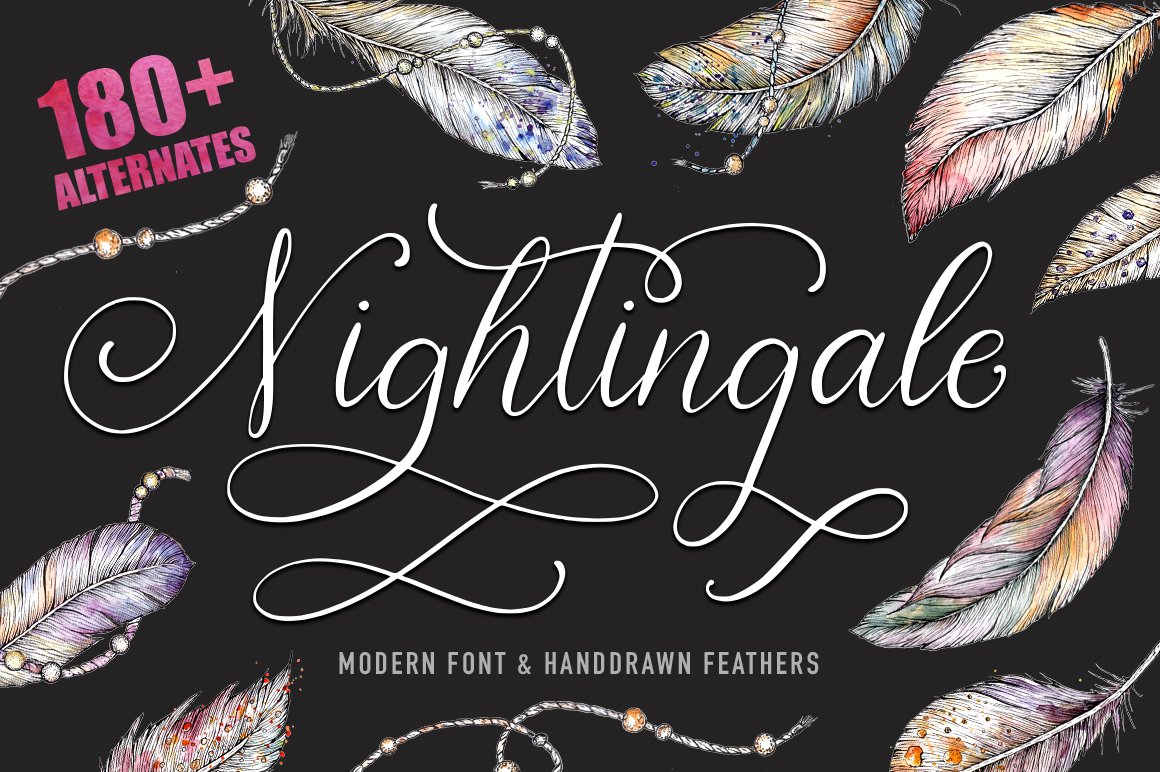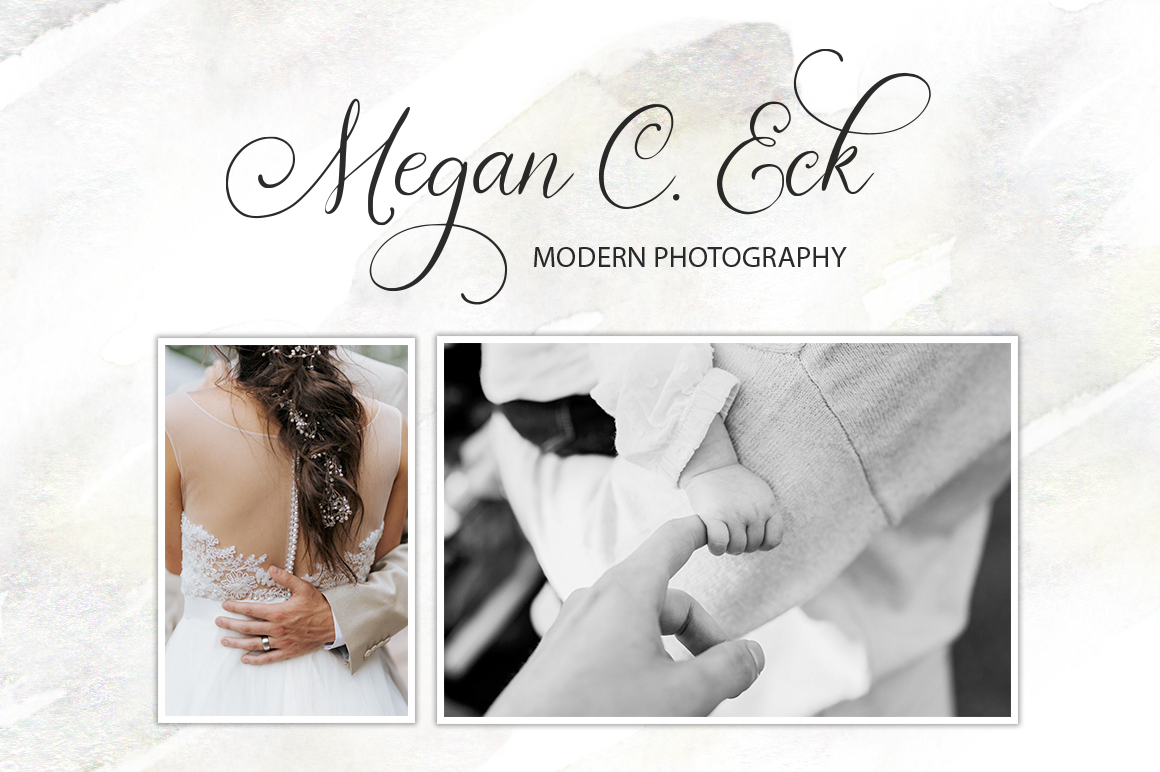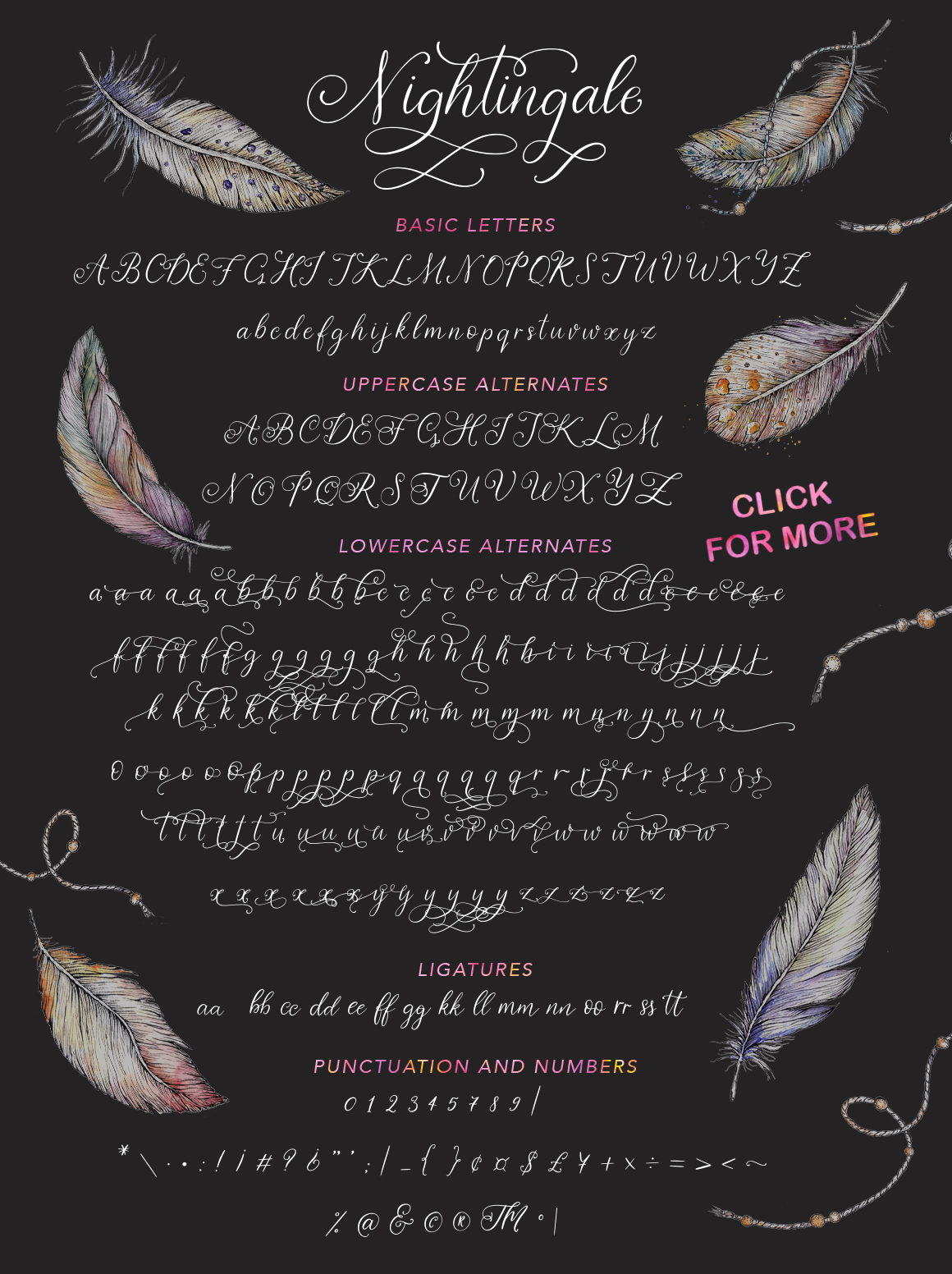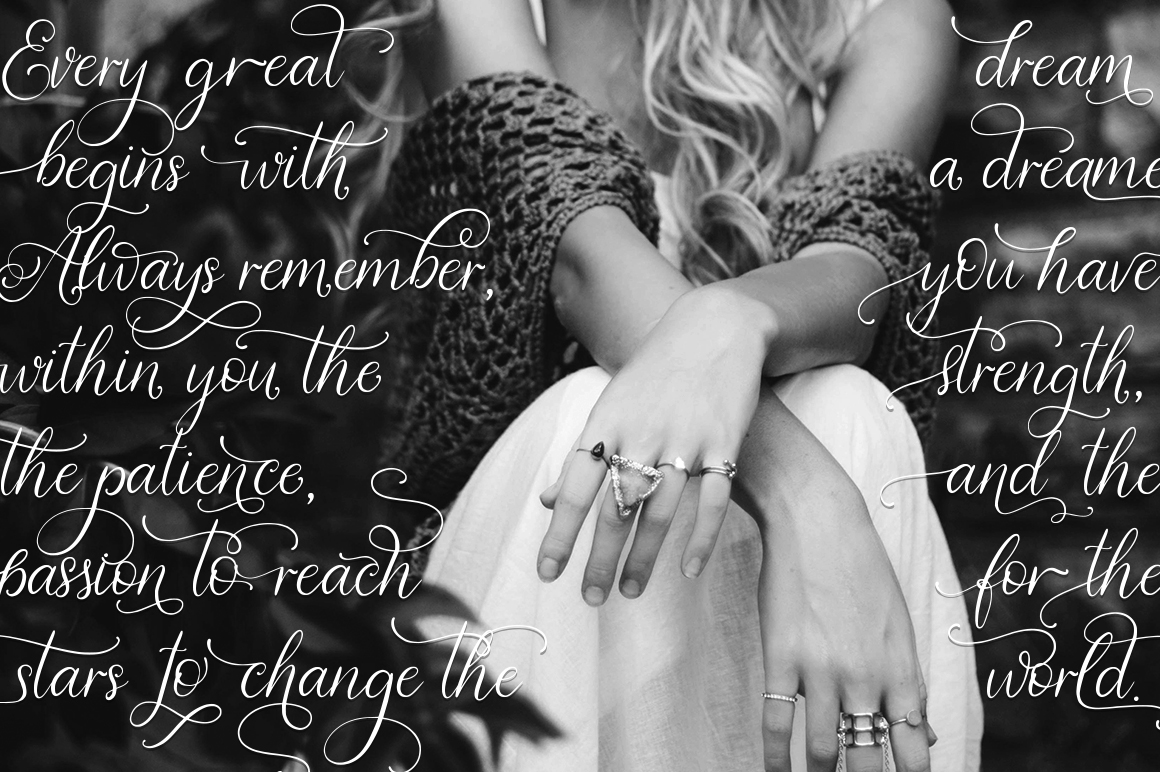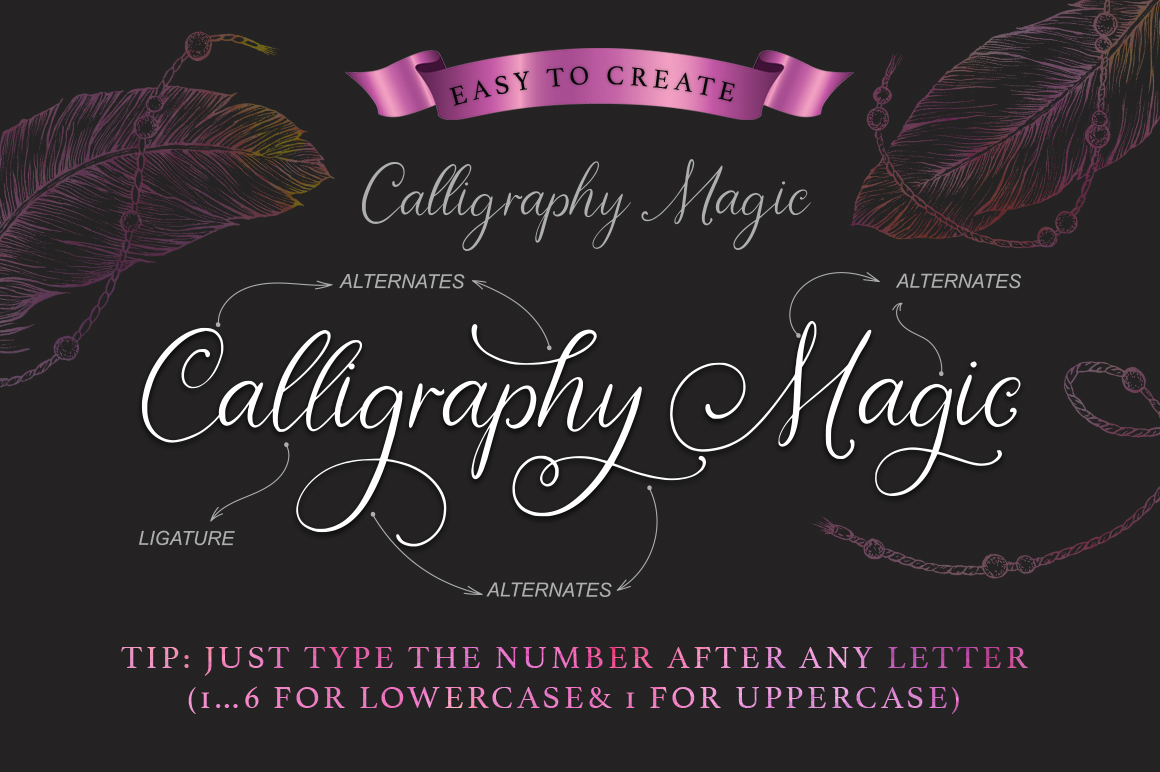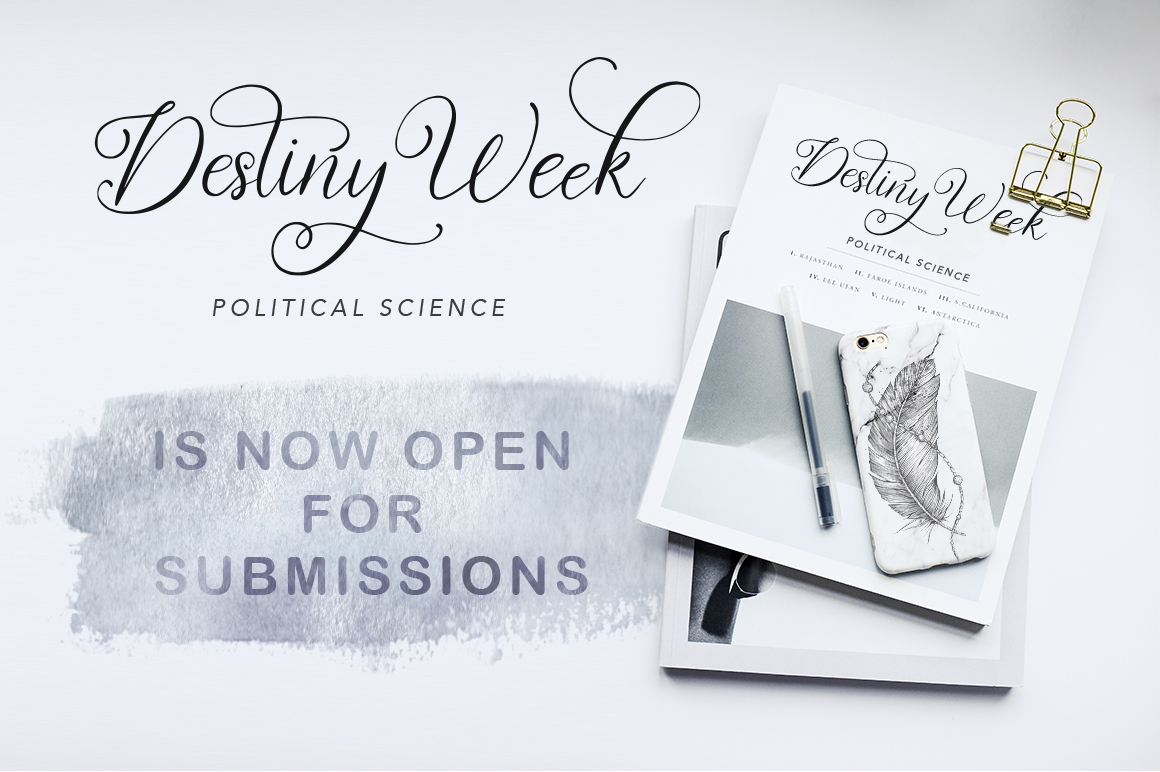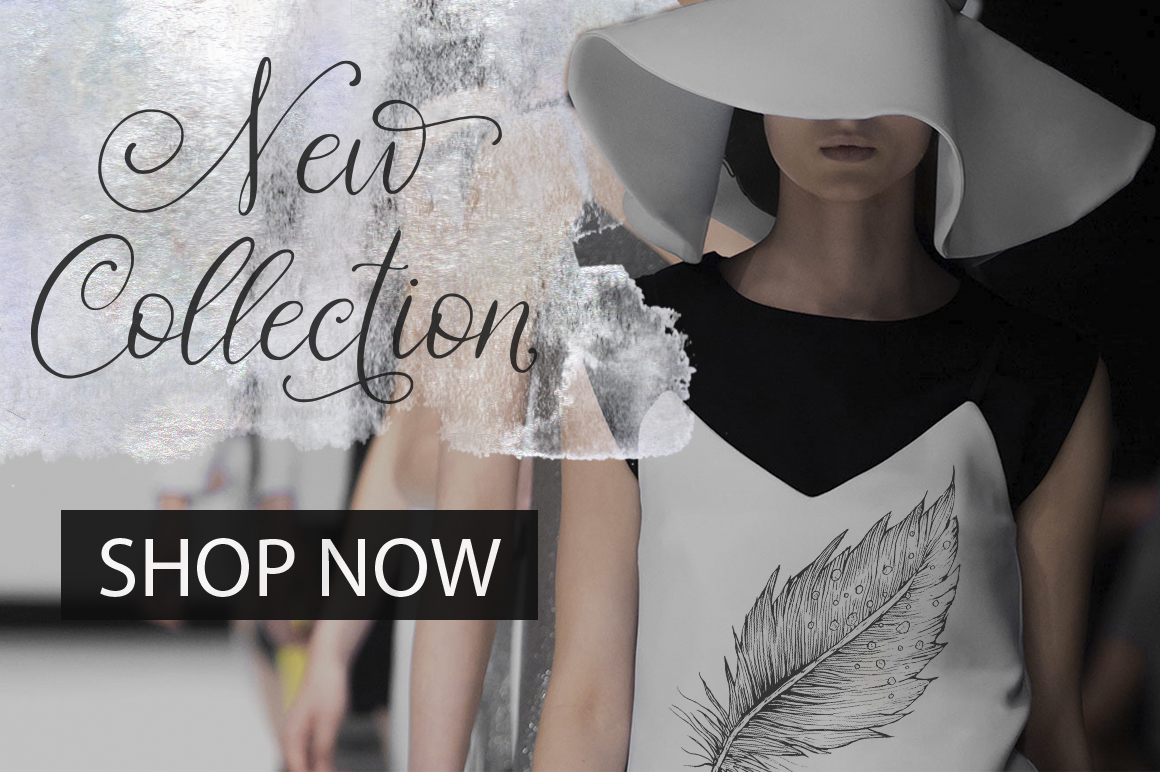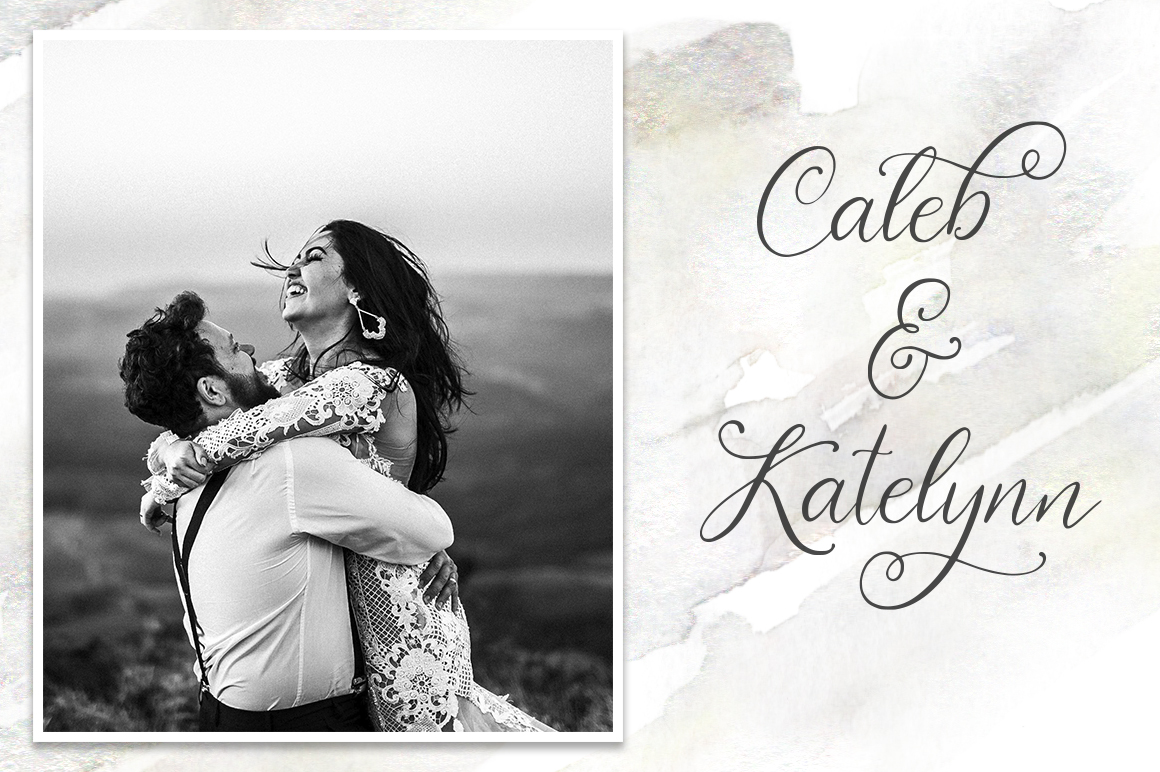
Nightingale Script Font
About Nightingale Script Font
The stunning Nightingale Script Font, with a modern, gentle, light, and magical look& feel. As a bonus, you will get 24 clip-arts with graphics and watercolor feathers in high resolution and various formats.
Nightingale is the perfect tool to create amazing designs, like greeting cards, modern t-shirts, posters, mugs, luxury branding materials, wedding and event stationery, social media overlays and any other projects you are working on.
Nightingale is a beautiful script font that comes with 6 variants of alternate letters for the lowercase and set of alternate letters for uppercase. This makes Nightingale a unique tool for creating amazing hand drawn texts, richly decorated with swashes.
It’s very easy to get alternative glyphs:
just type the number after any letter (1…6 for lowercase and 1 for uppercase). So, you can forget about the Glyphs panel and have fun and great results just type numbers after letters. Scroll down and use preview window for testing.
You can still use the Glyphs panel. You’ll see there 182 stylistic alternate glyphs and 15 ligatures. It has multilingual support, which include Western European, Central European and South Eastern European languages. You can use the preview box below to check any characters you need.